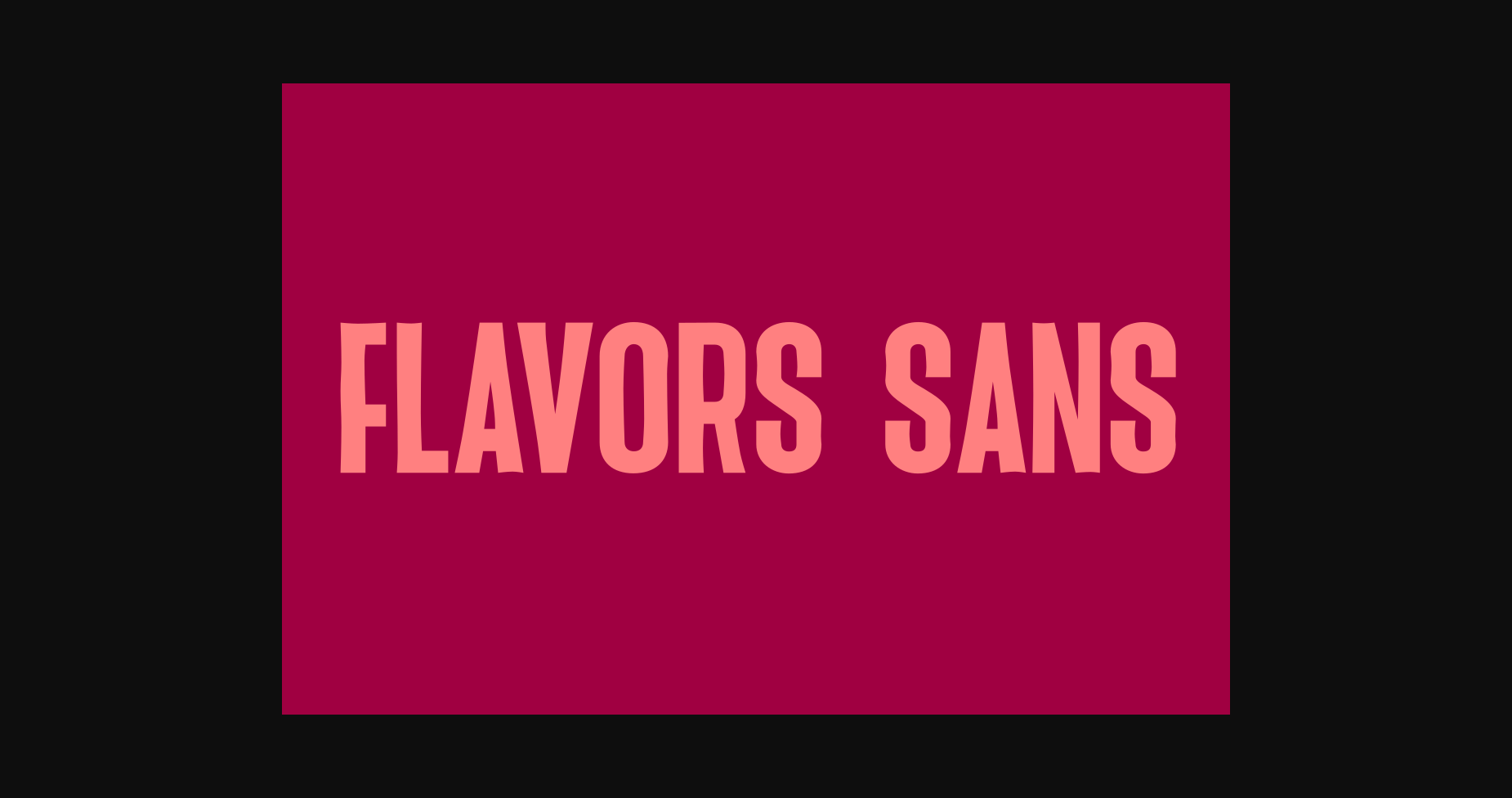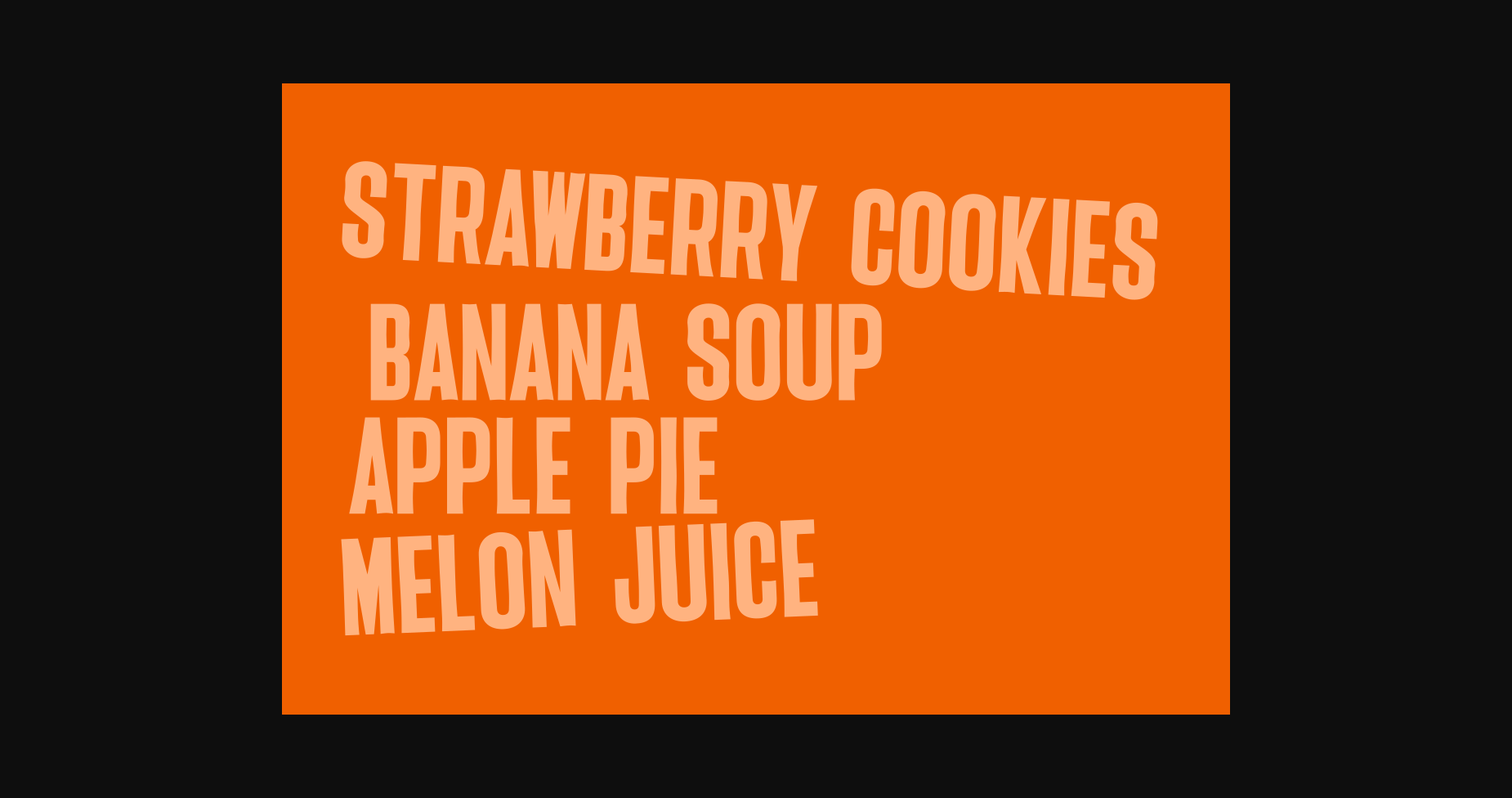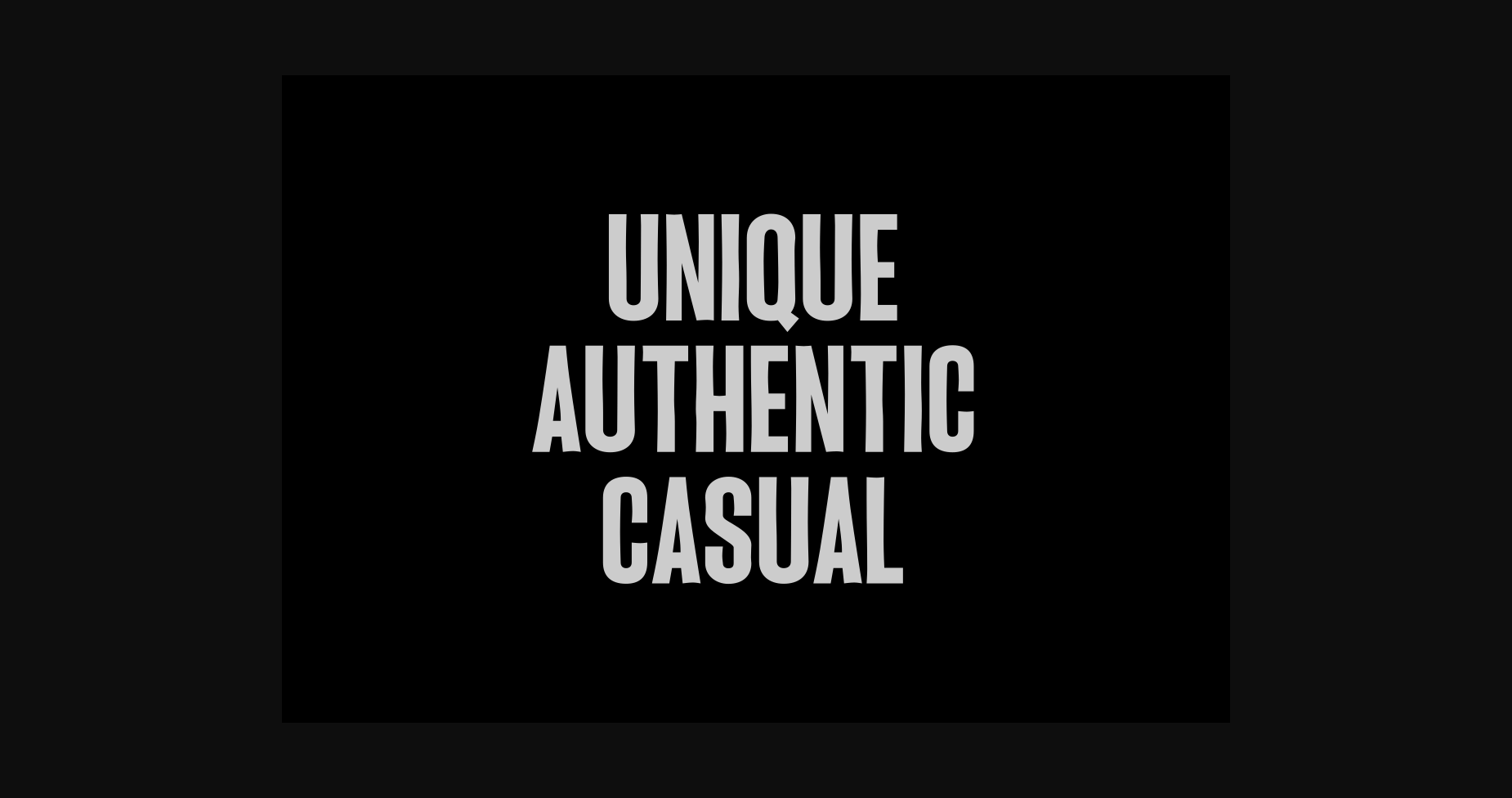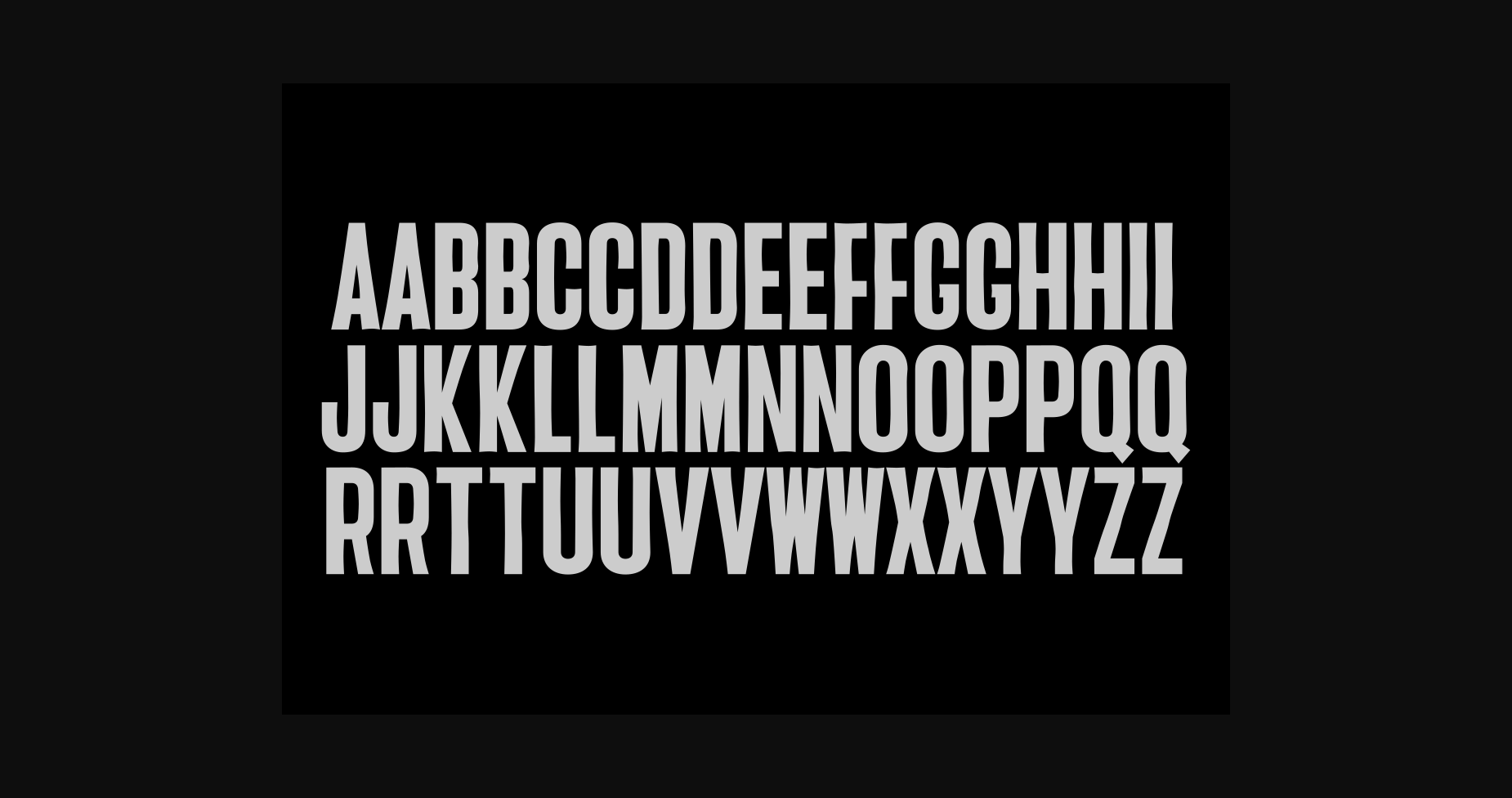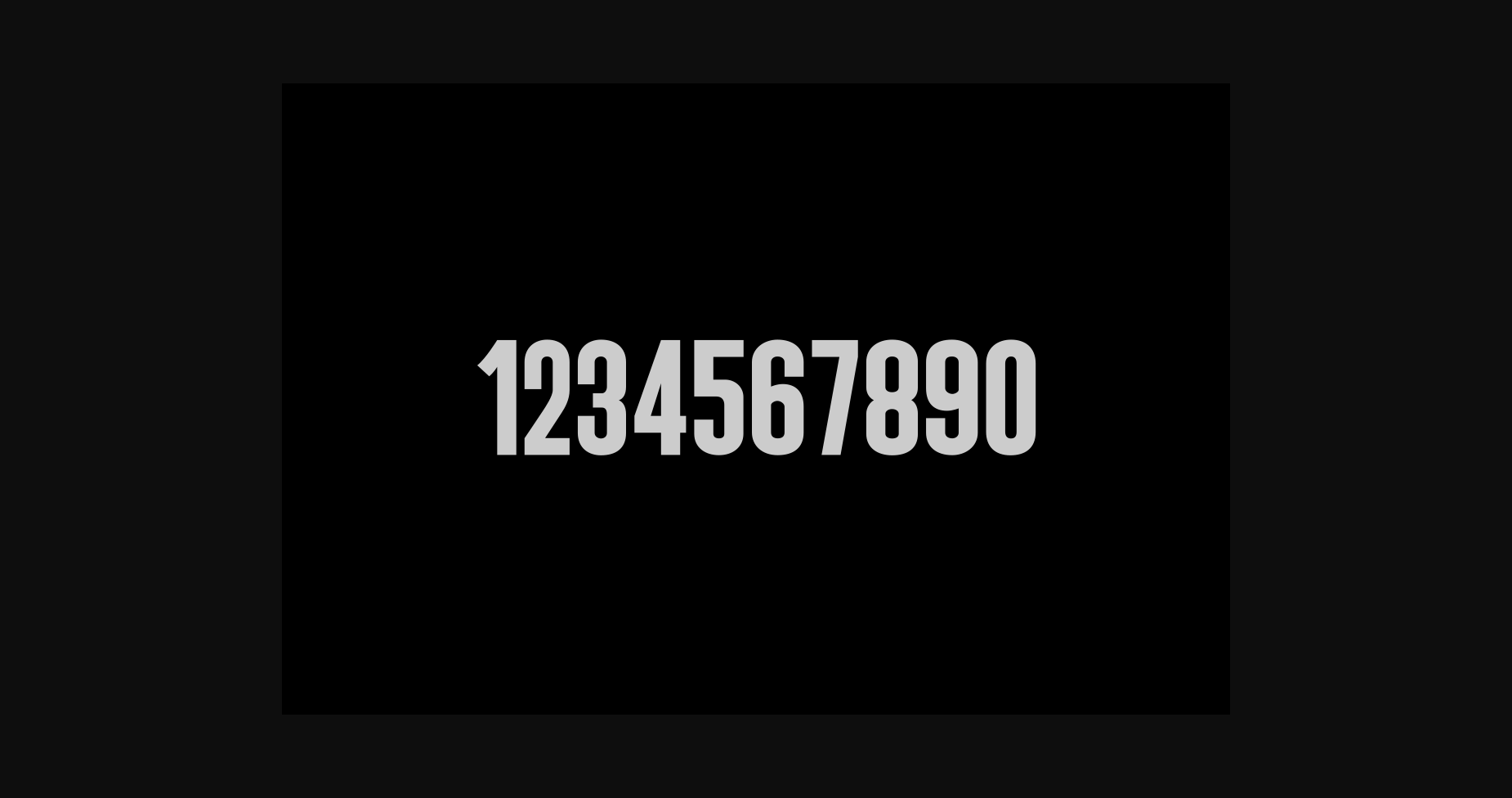
HomeSans Serif FontsFlavor Sans Font Sans Serif Fonts Flavor Sans Font FacebookXPinterestWhatsApp 1 of 7 ... Flavor Sans Font Poster 2... Flavor Sans Font Poster 3... Flavor Sans Font Poster 4... Flavor Sans Font Poster 5... Flavor Sans Font Poster 6... Flavor Sans Font Poster 7... About Flavor Sans Font Flavor Sans is a sans serif font suitable for casual-themed design applications. This font is made with a unique shape and condensed width, as well as a strong authenticity value. DOWNLOAD NOW People also explored Lunar Cone Font Wolington Font Sate Ayam Font Akira Expanded Font Santa Baby Font Write the Words Font Butterfly Fine Font Leisure Script Marquee Hipster Script Pro 467 0 TagsFlavor Sans Font Previous articleJandus Road FontNext articleAmartha Font LEAVE A REPLY Cancel reply Comment: Please enter your comment! Name:* Please enter your name here Email:* You have entered an incorrect email address! Please enter your email address here Website: Save my name, email, and website in this browser for the next time I comment. Personal Use Free Lightning Script Personal Use Free Read more about this font Sunbright Font Personal Use Free Read more about this font Alnair Star Personal Use Free Read more about this font Stentiga Personal Use Free Read more about this font BLOG How to Cut Any Font on Cricut: Convert a Font to SVG (Free) Turn any font into a clean SVG so it cuts crisp on Cricut - a quick 3-step workflow using a free font-to-SVG tool. To increase your work productivity, choose the most readable fonts. The 10 Best Handwriting Fonts to Add Personality to Your Designs Where to Buy American Fonts Online in 2024